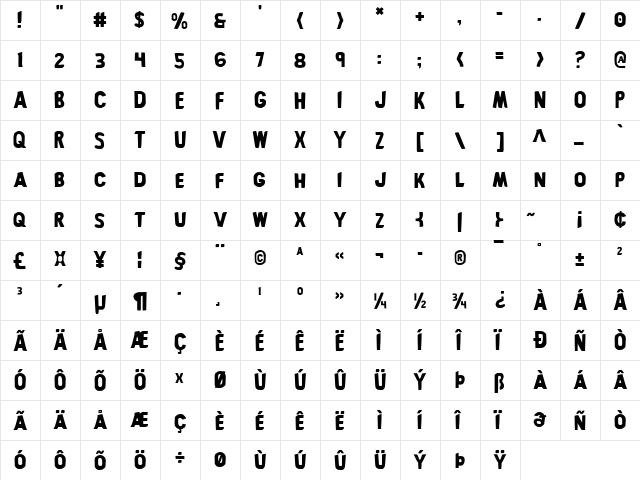
Bronic Regular
Design Context for Bronic Typeface
Bronic offers clean, dependable letterforms without strong stylistic allegiance, making it a practical choice for designers who need flexibility.